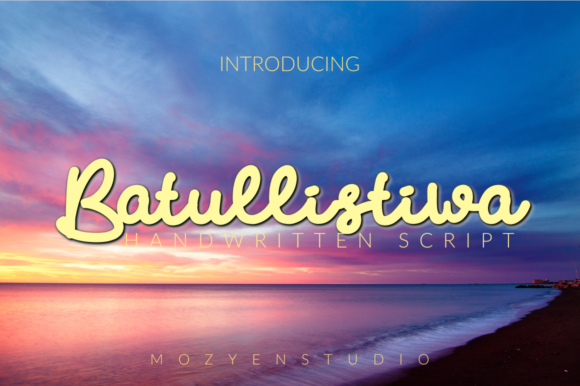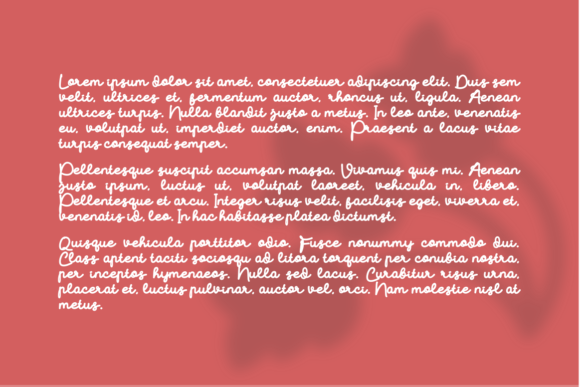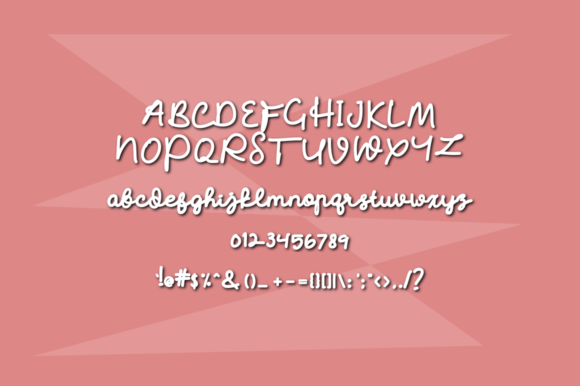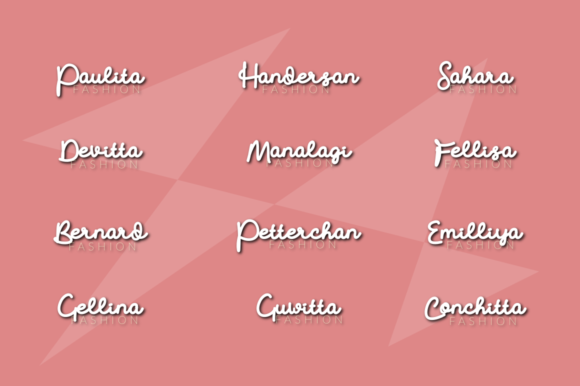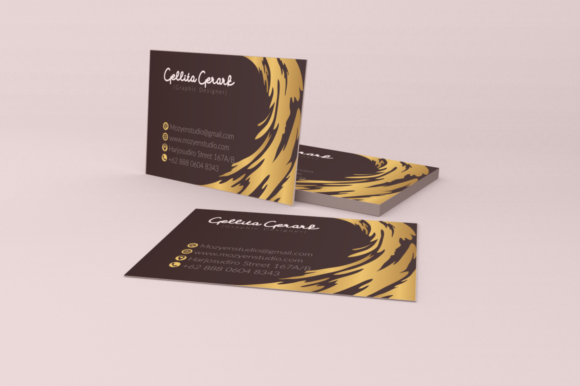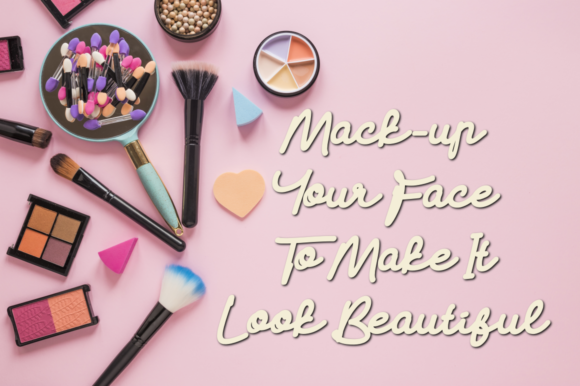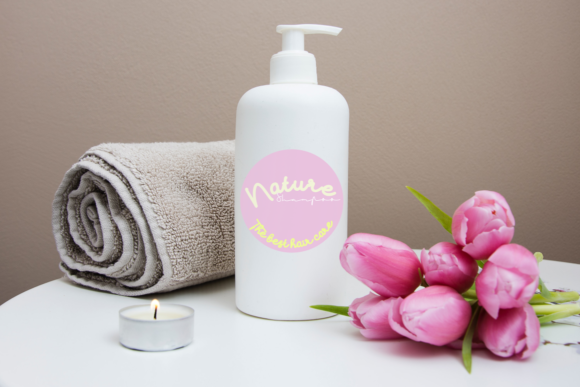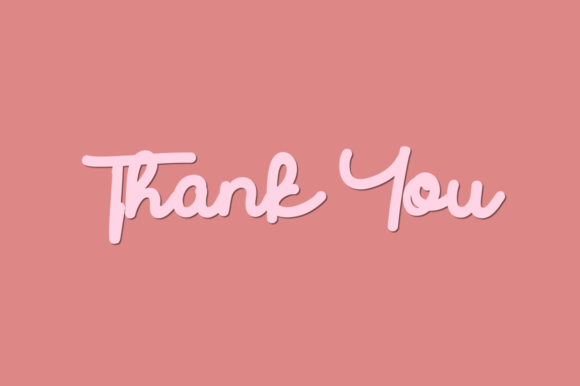
HomeScript FontsBatullistiwa Font Script Fonts Batullistiwa Font FacebookXPinterestWhatsApp Batullistiwa Font Poster 2 Batullistiwa Font Poster 3 Batullistiwa Font Poster 4 Batullistiwa Font Poster 5 Batullistiwa Font Poster 6 Batullistiwa Font Poster 7 Batullistiwa Font Poster 8 About Batullistiwa Font Batullistiwa is a sweet and charming script, full of energy. Get inspired by its modern simplicity. DOWNLOAD ON CREATIVE FABRICAThis font is sold and delivered by Creative Fabrica. Font Canyon may earn a commission if you buy through this link. People also explored Andantino Sweet Coconut Font Spring Rhapsody Font Farmhouse Font Queen Azula Font Holy Love Font Amabillis Font The Future is Better Font Coat Hanger Font 336 0 TagsBatullistiwa Font Previous articleRossmore FontNext articleBrosley Font LEAVE A REPLY Cancel reply Comment: Please enter your comment! Name:* Please enter your name here Email:* You have entered an incorrect email address! Please enter your email address here Website: Save my name, email, and website in this browser for the next time I comment. Personal Use Free Vivacious Personal Use Free Read more about this font Andolas Personal Use Free Read more about this font Abuget Free Script Personal Use Free Read more about this font Kinda Sweet Personal Use Free Read more about this font BLOG Modern Sans-Serif Fonts That Brands Love in 2025 In 2025, modern sans-serif fonts remain a top choice for brands looking to project clarity, professionalism, and... Free vs Paid Fonts: Why Investing in Premium Fonts Is Worth It Using Fonts in Digital Marketing: Tips to Strengthen Your Brand Identity Top 7 Google Fonts Alternatives for Faster and Privacy-Friendly Web Design (2025)